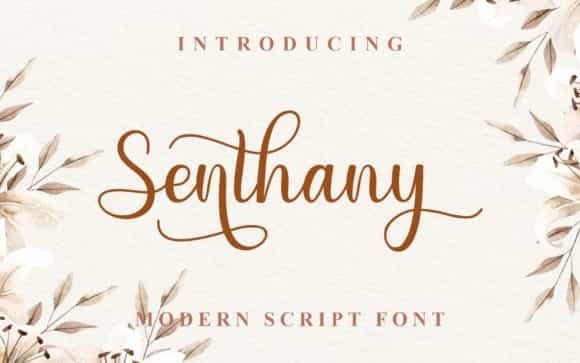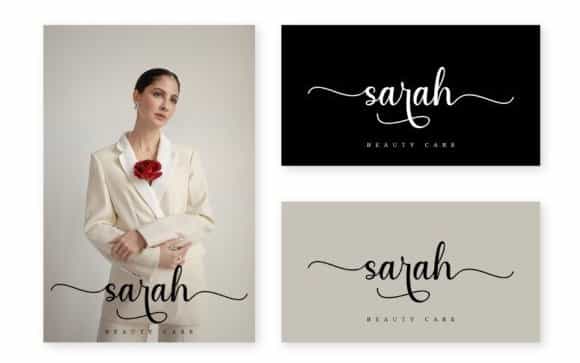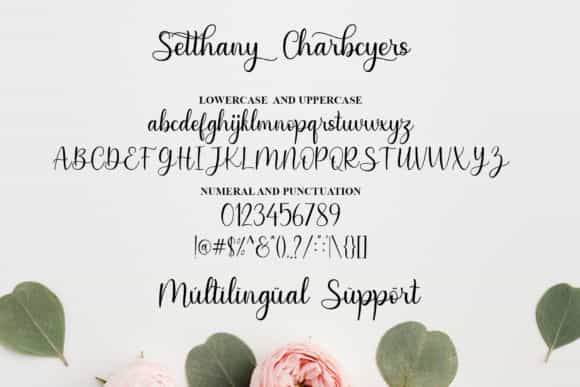
Discover Senthany Calligraphy Font, part of the Commercial Calligraphy collection—a versatile and unique font perfect for adding a personal touch to your projects. Download it for free and enjoy crafting designs with style, from invitations to social media posts. This font is available exclusively for personal use, giving you the freedom to create without limits. Unlock your creativity with Senthany Calligraphy Font today!
Senthany is a romantic font with wonderful alternatives and swashes. It will be a beautiful and the most expensive part of your design.